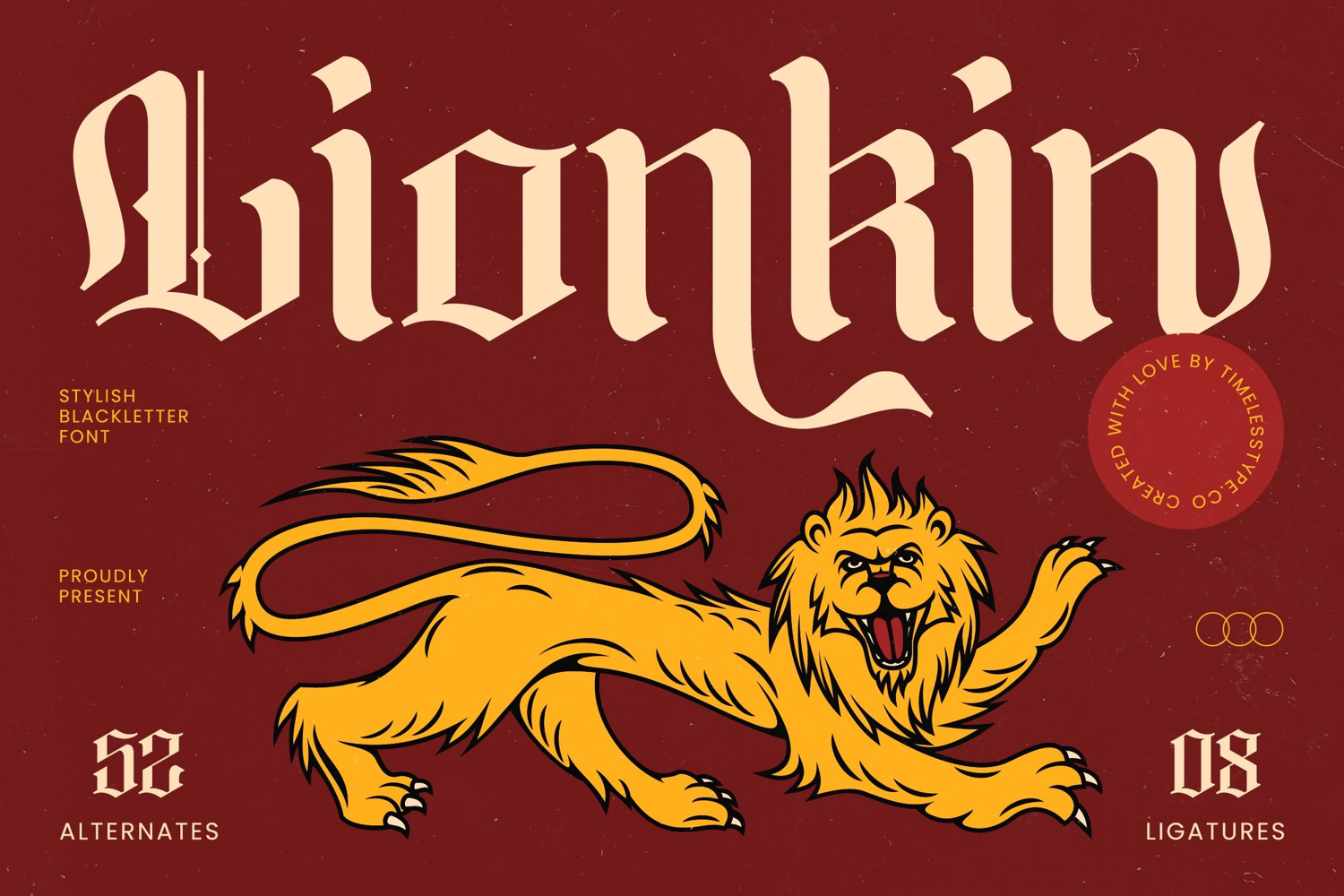
Lionkin - Stylish Blackletter Font
Lionkin
Lionkin Italic
Lionkin - Stylish Blackletter Font
Font Lionkin - Stylish Blackletter Font Blackletter merges the grandeur of traditional Blackletter with an unmistakable contemporary edge, creating a truly distinctive typographic experience. Its elegant strokes and refined curves command attention, making it perfect for designs seeking a blend of historical gravitas and modern impact. This font offers a powerful visual statement, ensuring your message is conveyed with both authority and sophisticated charm.
Experience unparalleled design flexibility with Font Lionkin - Stylish Blackletter Font Blackletter, meticulously crafted to provide extensive creative control. Featuring an impressive 52 alternates and 08 powerful ligatures, designers can easily customize text to achieve unique visual compositions. These robust features ensure that every headline, logo, or title projects an air of bespoke quality and high-contrast elegance.
With its extensive multilingual support, Font Lionkin - Stylish Blackletter Font Blackletter adapts seamlessly across global markets, making it incredibly versatile for international projects. This comprehensive language compatibility ensures that your brand’s message resonates authentically with diverse audiences worldwide, enhancing its global appeal and operational efficiency for designers.
Font Lionkin - Stylish Blackletter Font Blackletter is an indispensable asset for projects demanding a touch of prestige and character. It is perfectly suited for luxury branding, premium packaging, editorial design, captivating game titles, apparel graphics, and high-end event invitations. Choose Font Lionkin - Stylish Blackletter Font Blackletter to elevate your designs and leave a truly memorable impression.